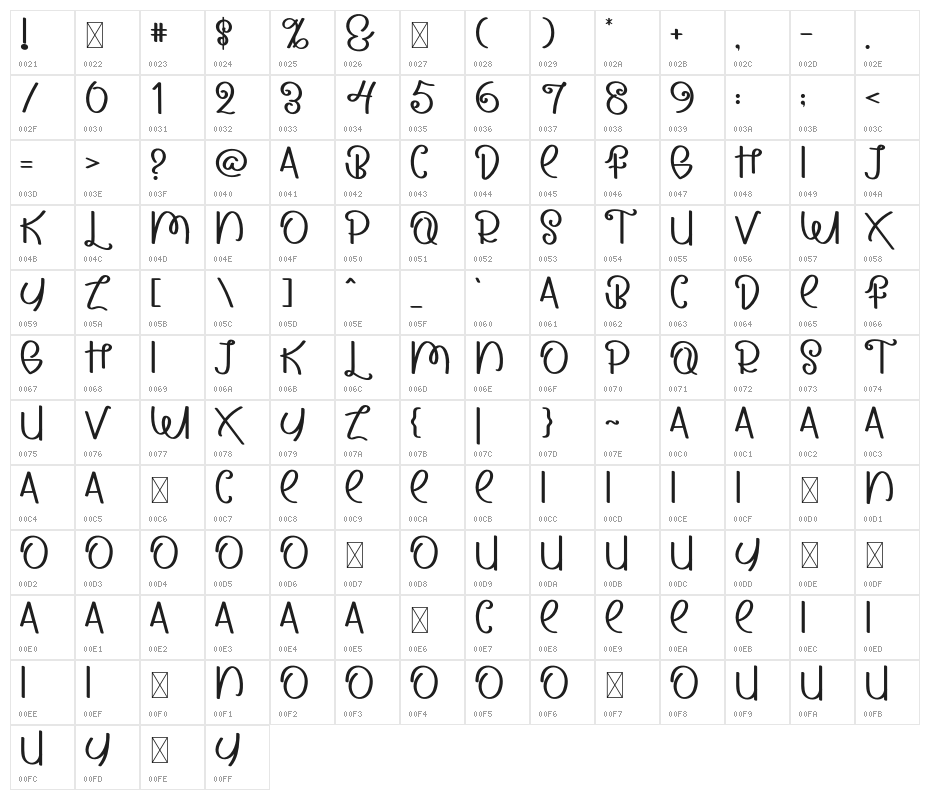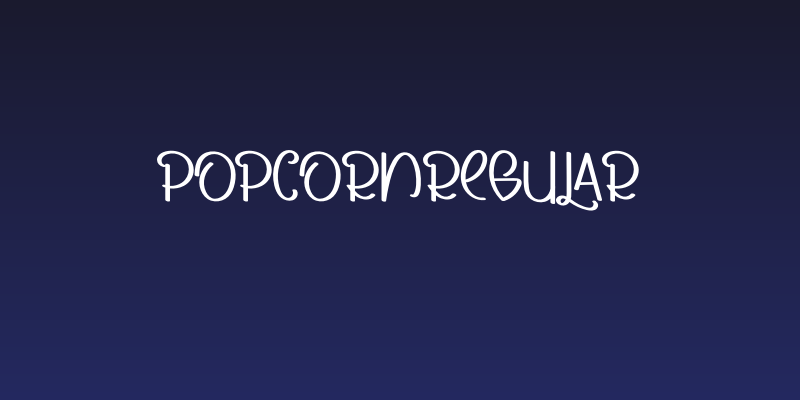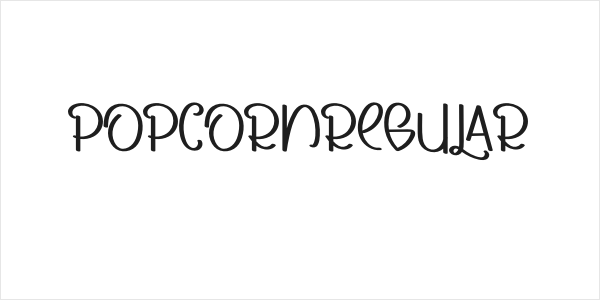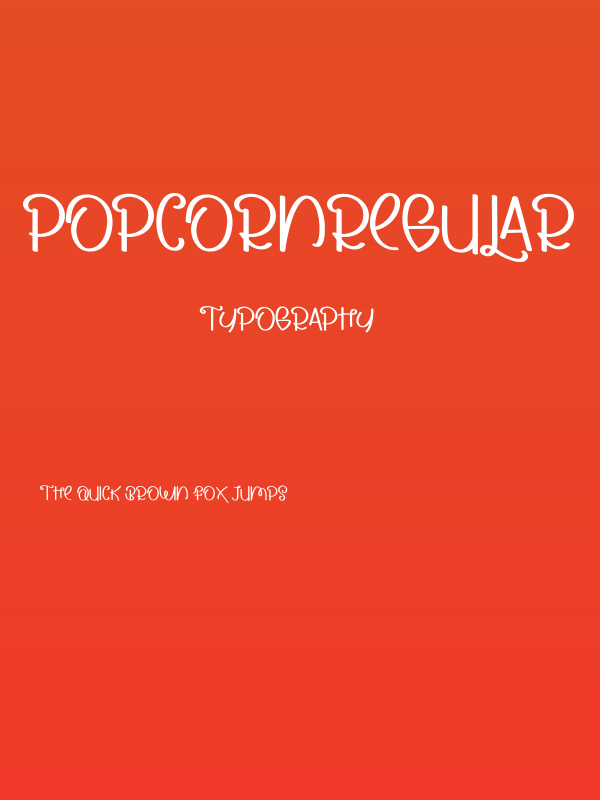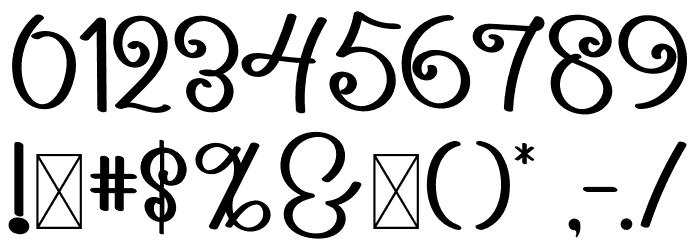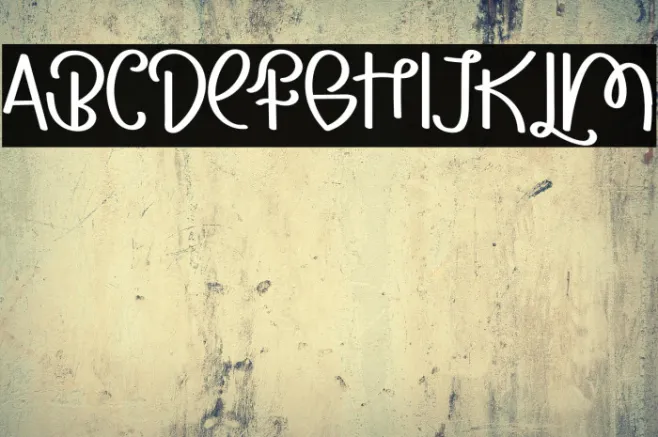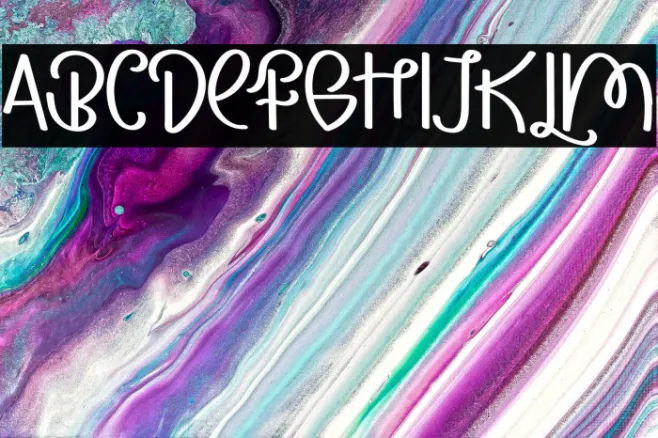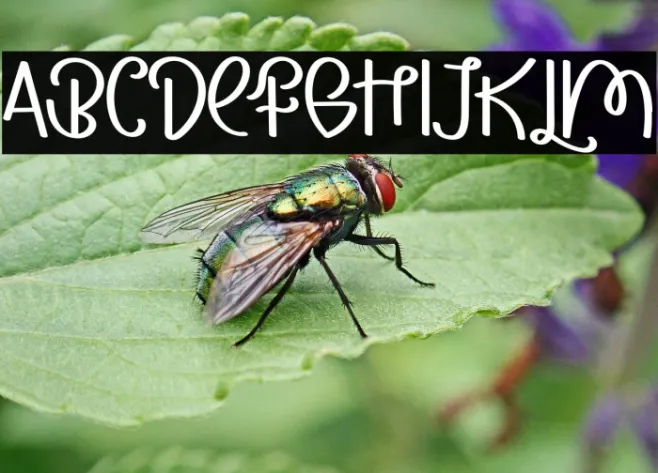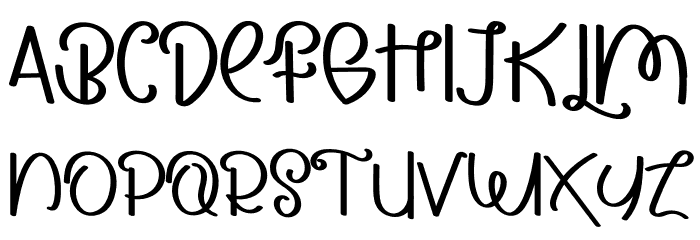
POPCORNRegular Font
POPCORNRegular Description
This playful and whimsical font features a unique blend of curves and loops, giving it a lively and energetic appearance. The uppercase letters are bold and rounded, with distinctive swirls that add a touch of elegance. The lowercase letters maintain a consistent style, with smooth transitions and a slightly condensed form. Numbers are equally expressive, with a playful twist that complements the overall design. Special characters are creatively styled, enhancing the font's decorative appeal. This font is perfect for projects that require a fun and engaging aesthetic.